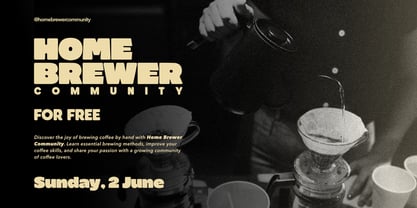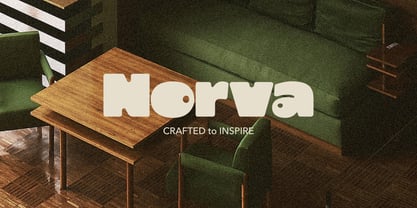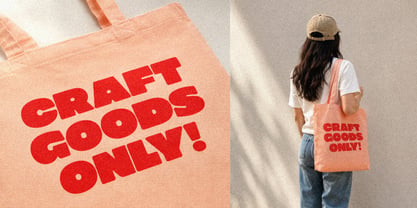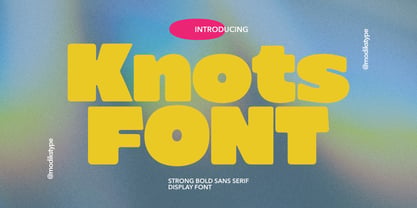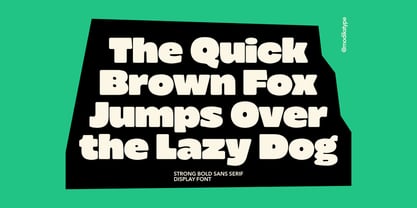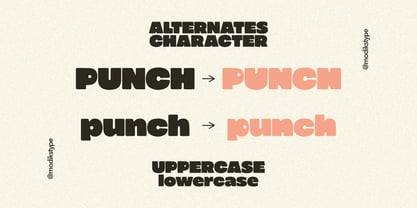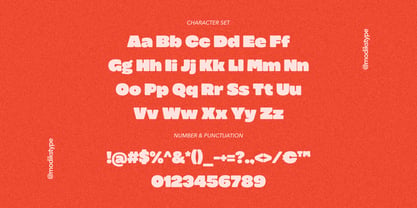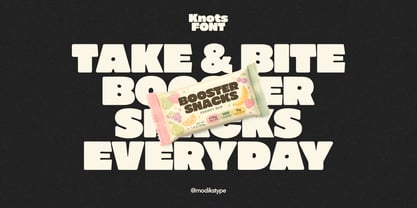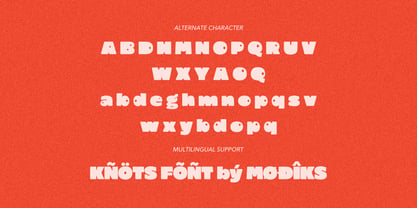
Knots
La familia tipográfica Knots fue diseñada por Angga Monad y publicada por Modikstype. Knots contiene 1 estilos. Más información sobre esta familia
Knots is a strong, bold, and playful display font designed to make a statement. With its chunky letterforms, smooth curves, and retro-inspired personality, Knots brings a fun yet powerful presence to any design project.
Perfect for branding, packaging, posters, headlines, social media graphics, logos, merchandise, children's products, food packaging, and editorial designs. Its eye-catching style ensures maximum impact while maintaining excellent readability.
Whether you're creating a nostalgic retro aesthetic, a modern playful brand, or bold marketing materials, Knots delivers the confidence and character your designs need.